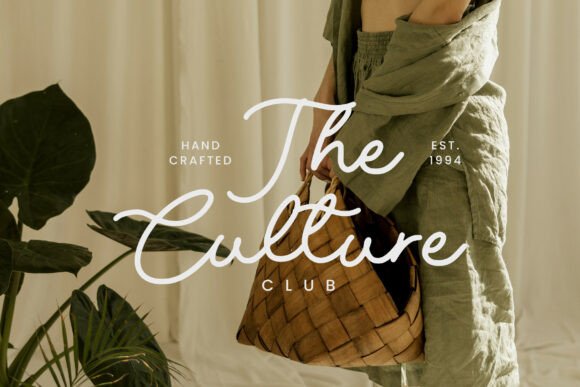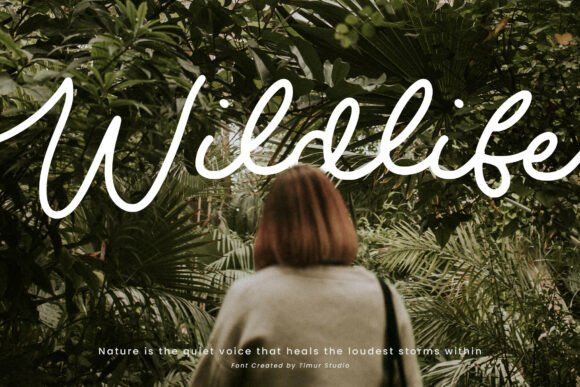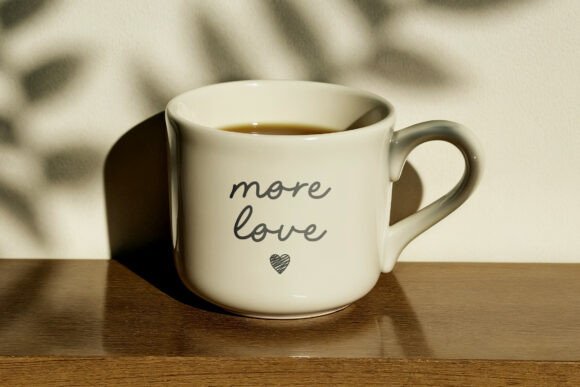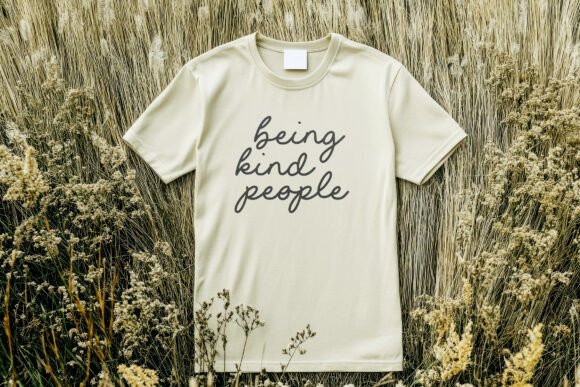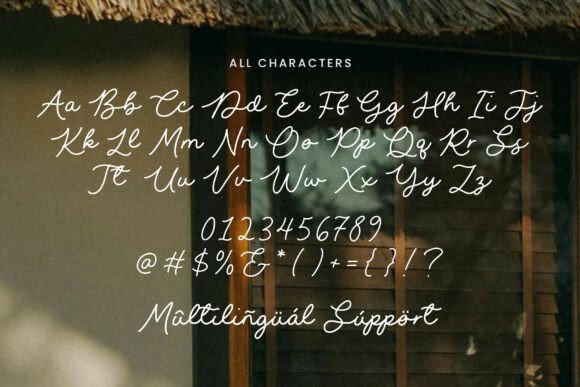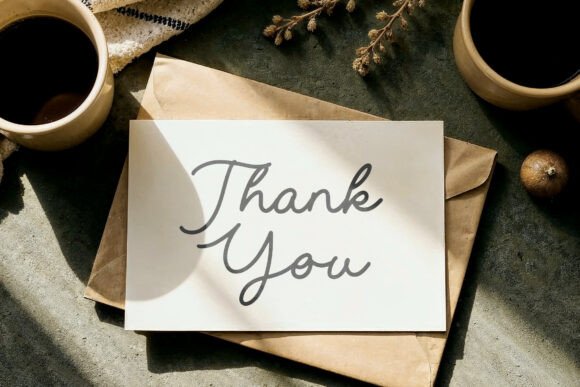
Introduction to Opaline Nottela Font
Opaline Nottela is a modern monoline font with smooth, balanced strokes and a refined minimal look.
Its clean flow and understated elegance make it perfect for branding, logotypes, and stylish contemporary designs .
Key Features of Opaline Nottela Font
Why Choose Opaline Nottela Font?